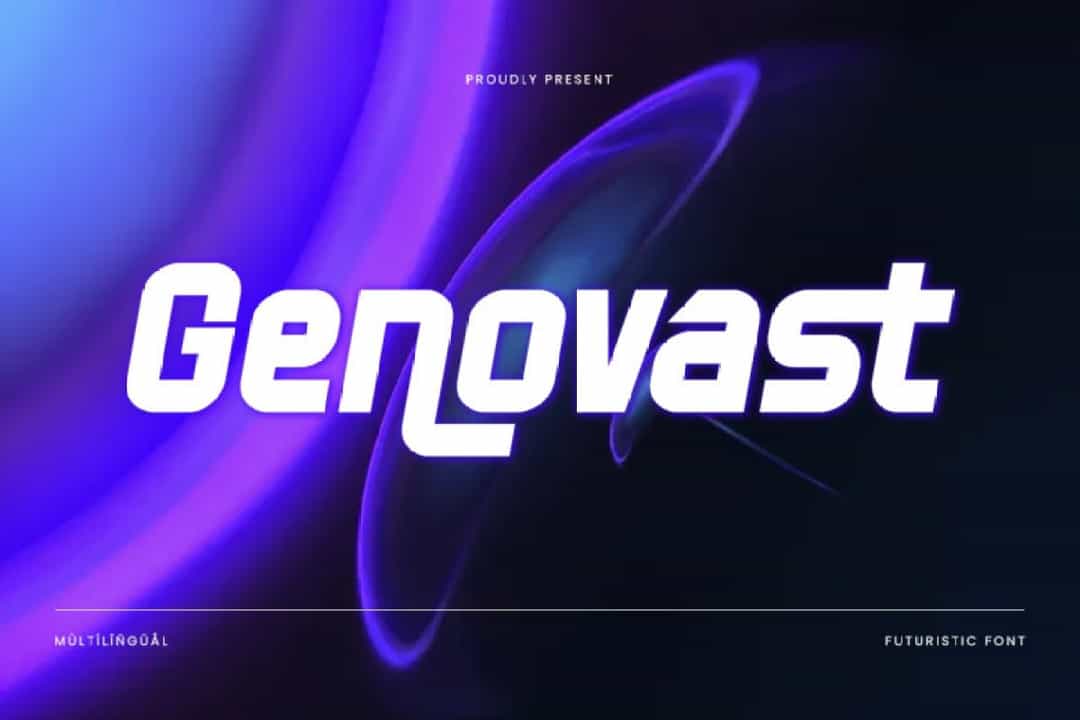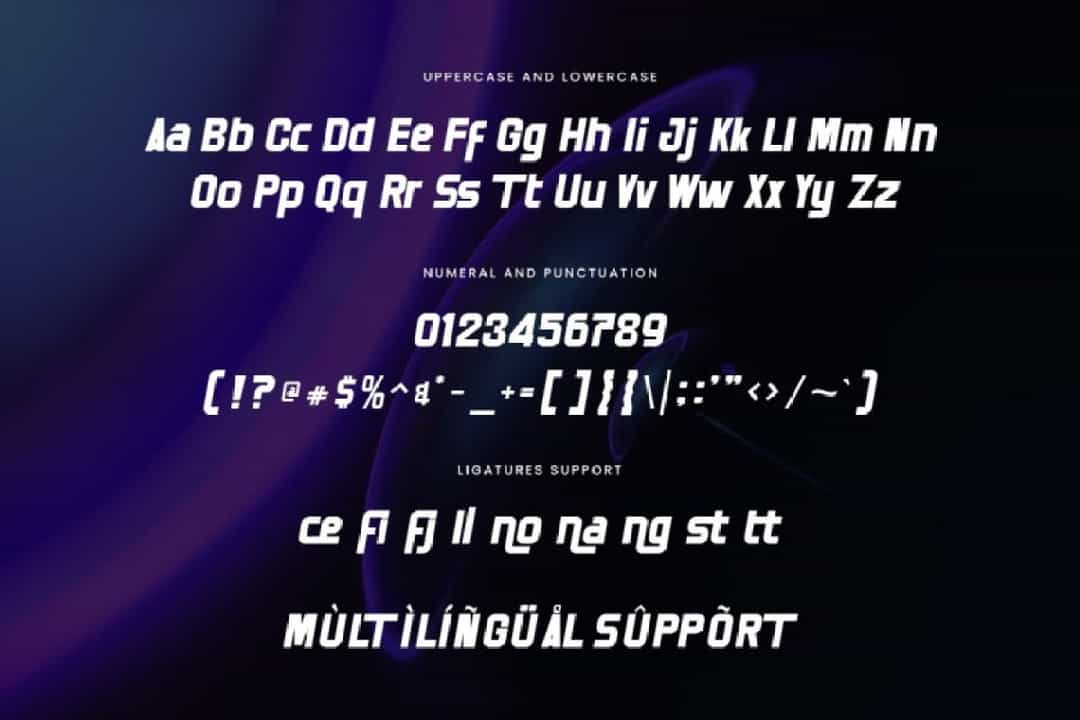
Genovast is Modern Simple Sans Serif Font is an eye-catching font designed with contemporary flair. Ideal for creating logos and headers, Genovast is stands out as the ideal addition to your designs and makes the designs pop!